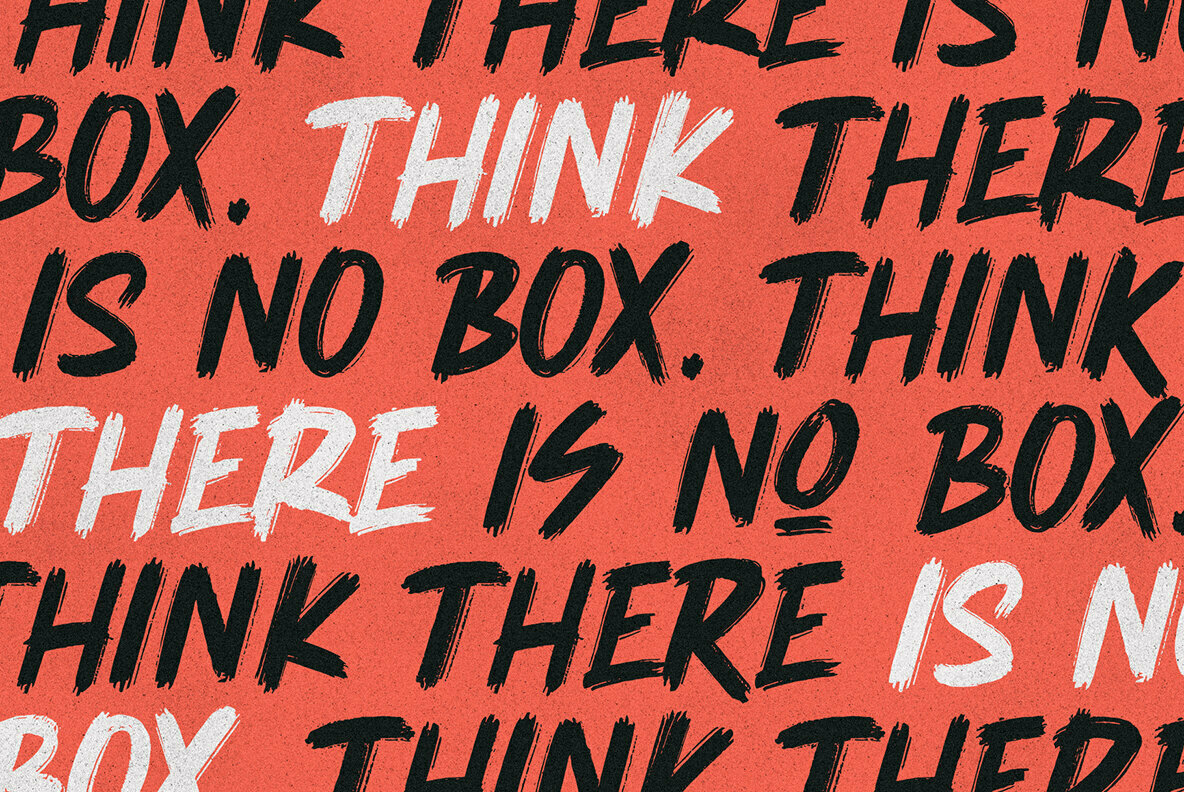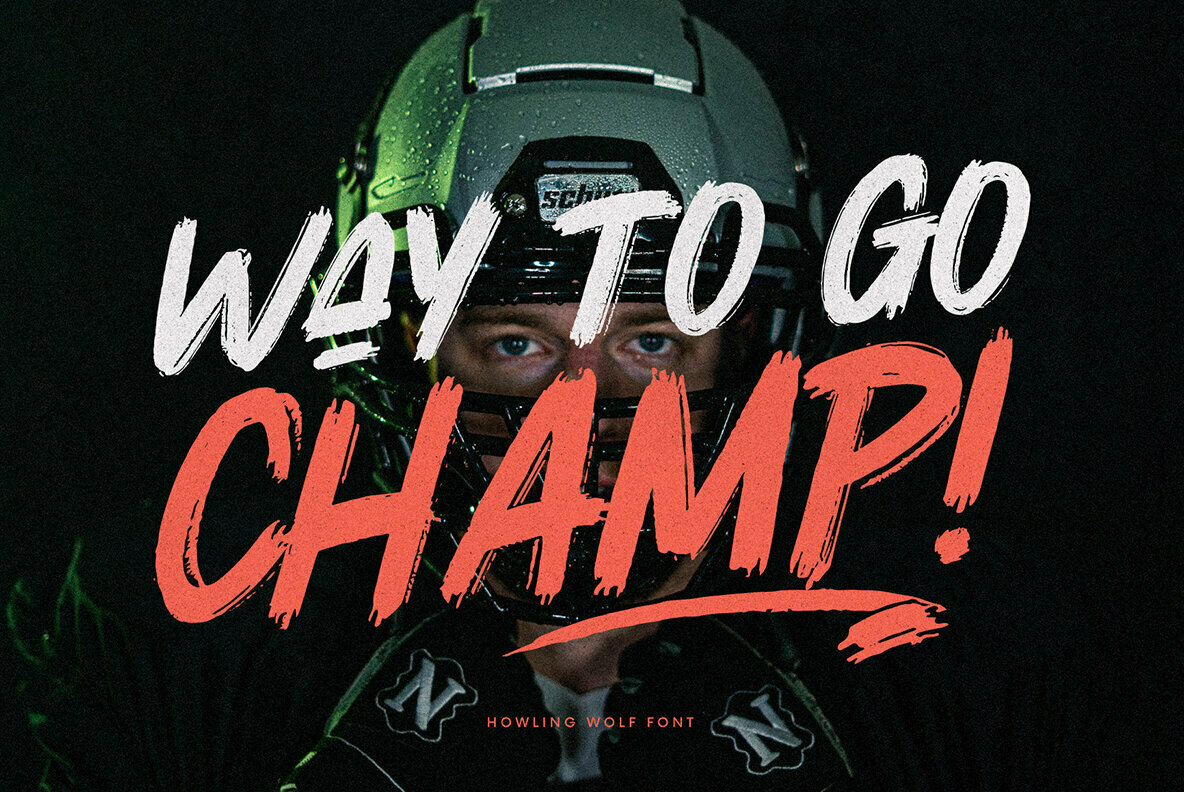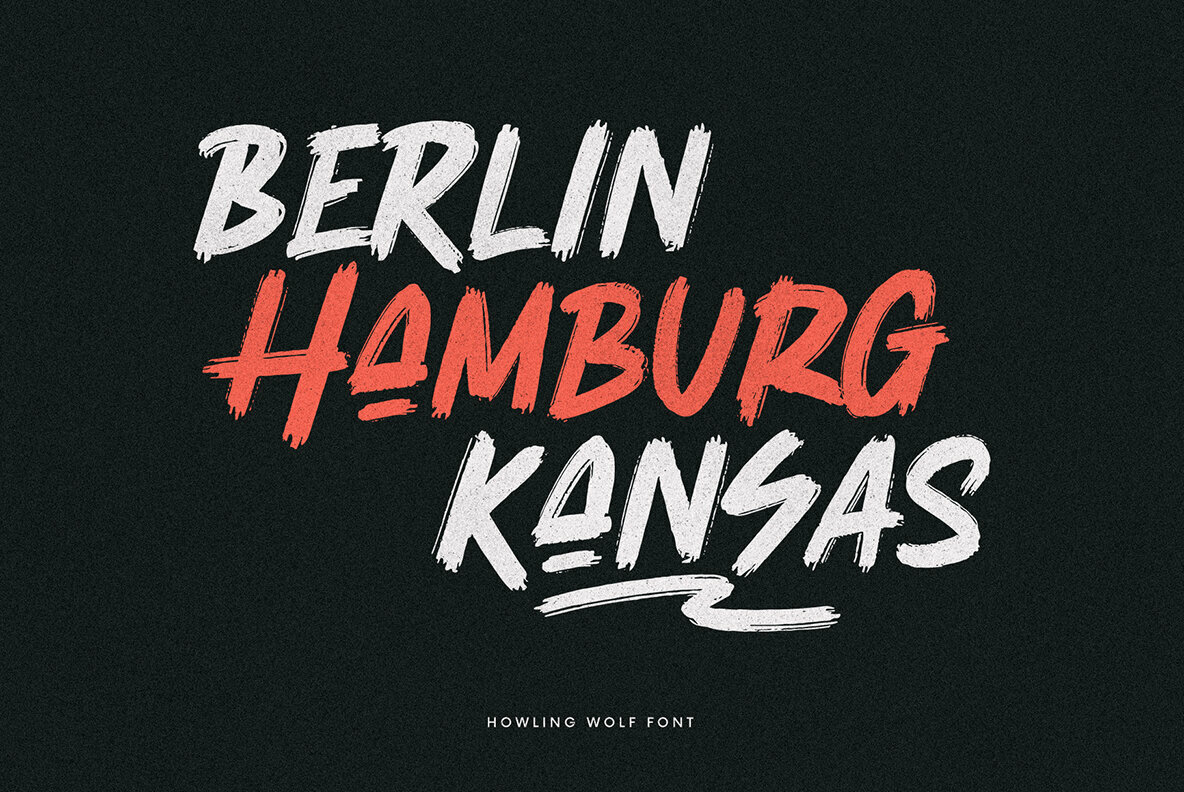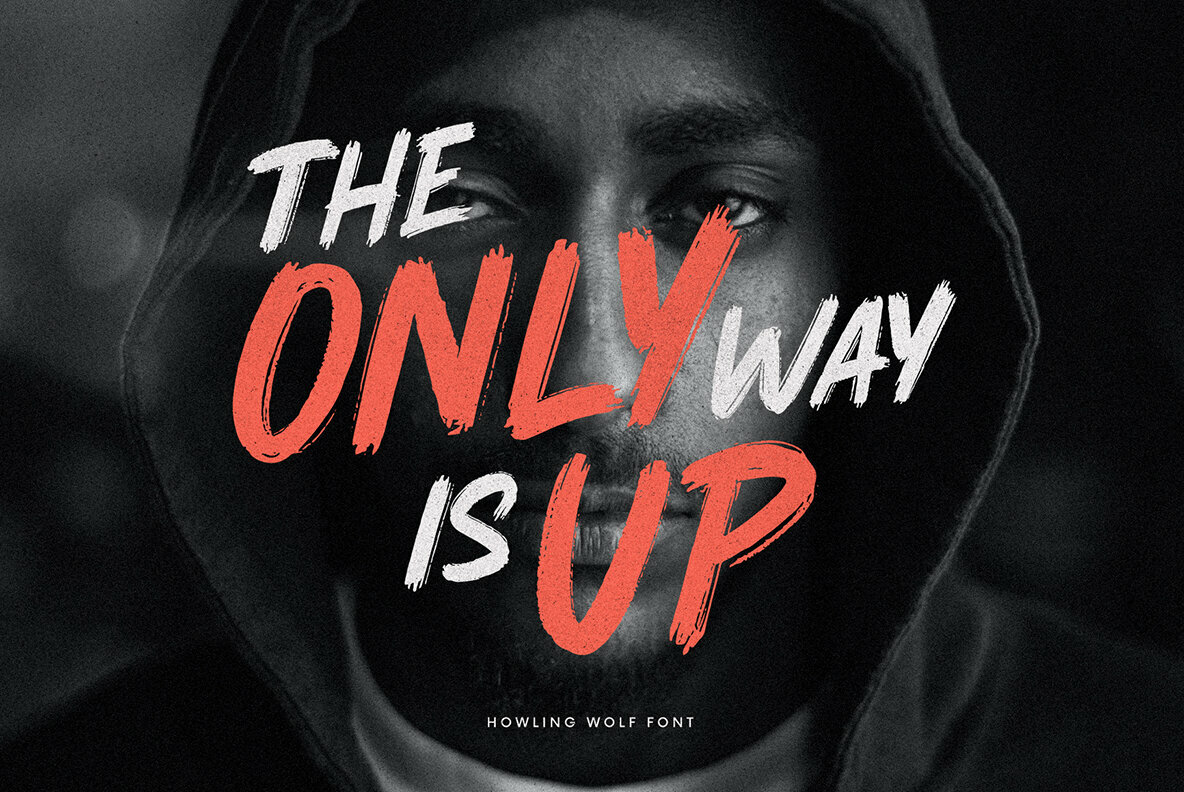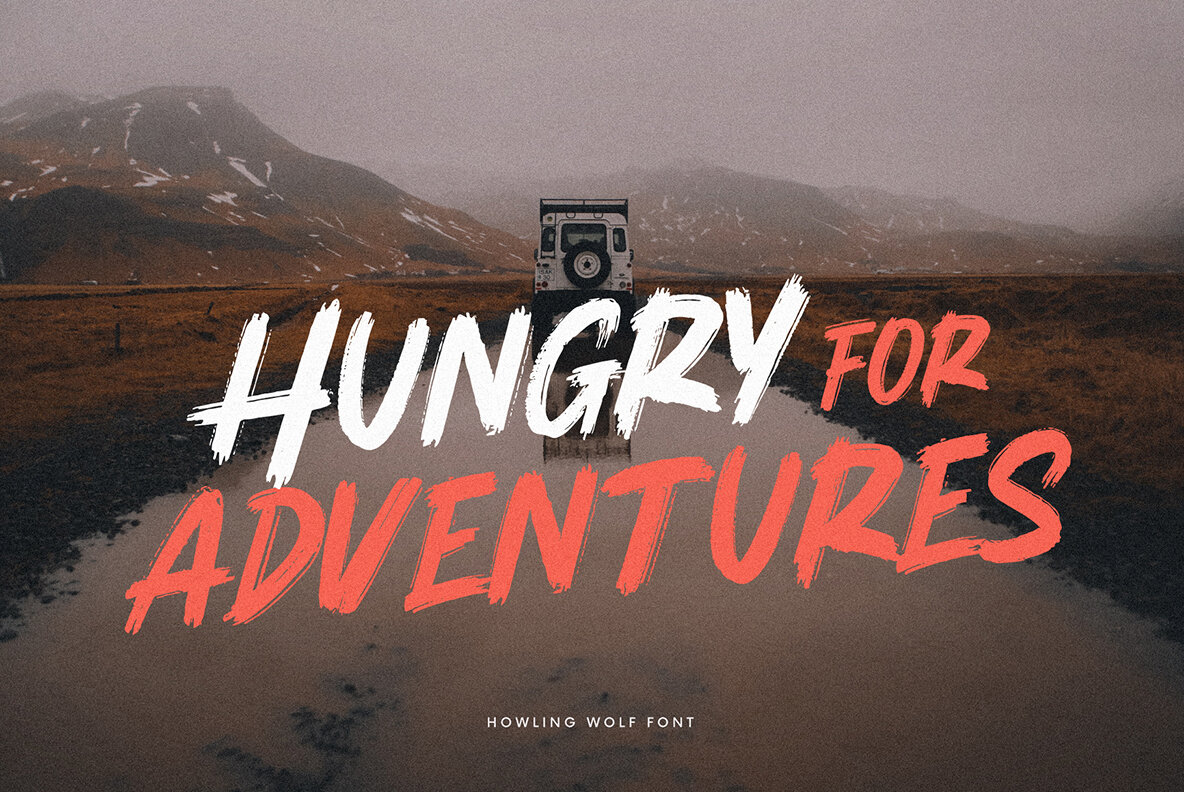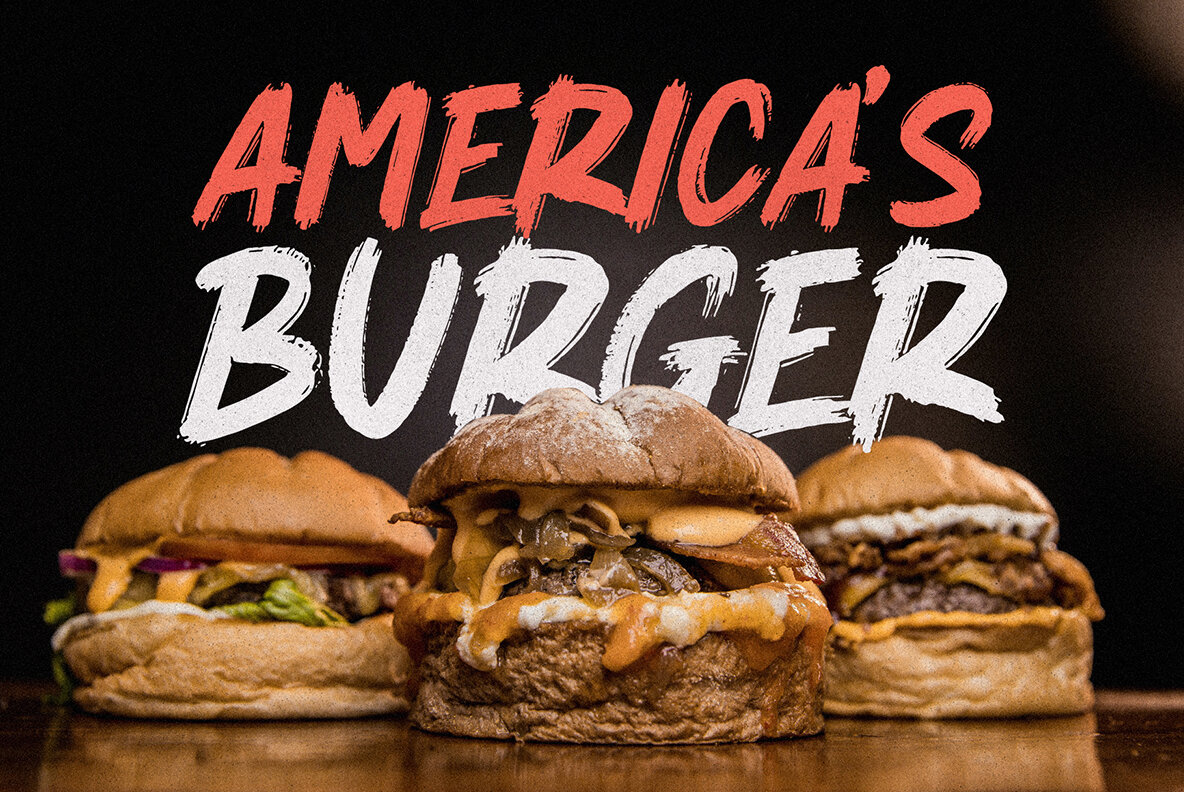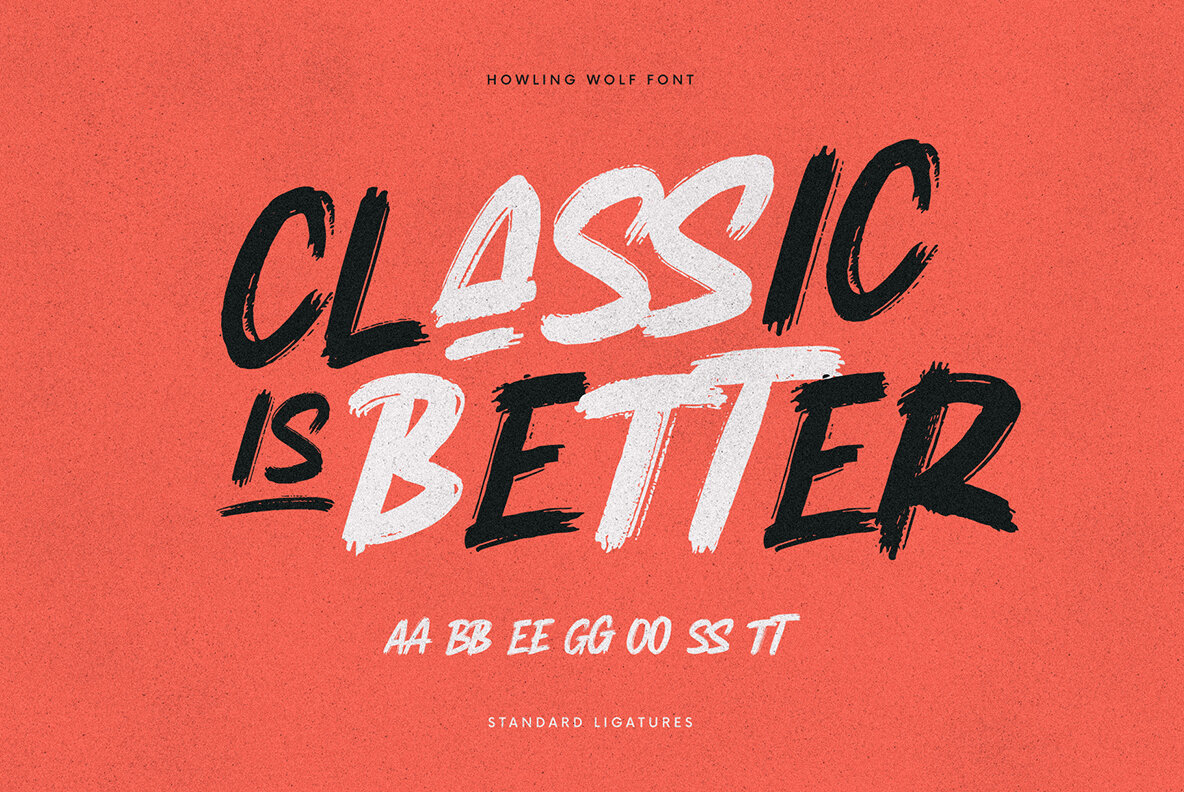
Howling Wolf Font
Howling Wolf
Howling Wolf stands out as an all-caps font that brings an aggressive flair to any display design. It is rendered in a striking brush style that boldly asserts itself in your creative projects. This font is an excellent choice for designers looking to make a strong visual statement. Applications: Ideal for use in headings, flyers, greeting cards, product packaging, book covers, printed quotes, logotypes, and album covers.Howling Wolf: A Bold Brush Font for Impactful Design